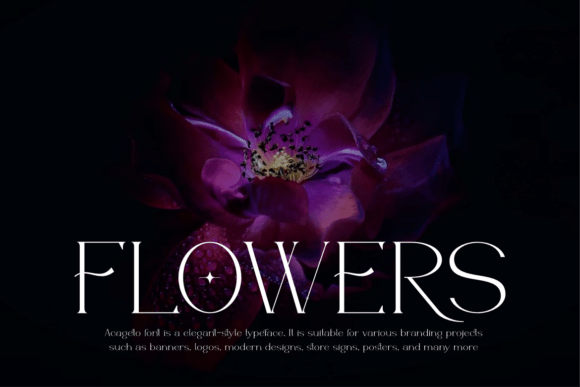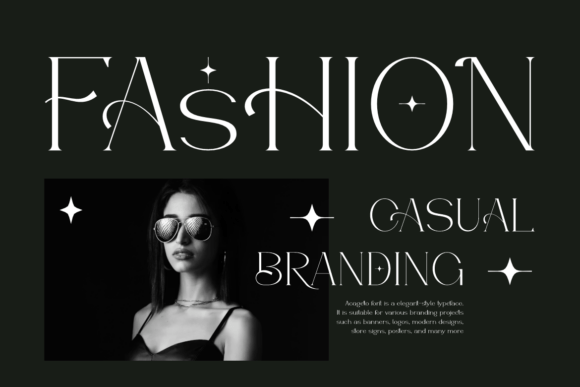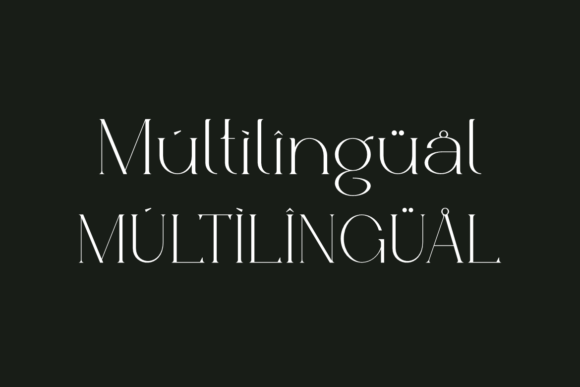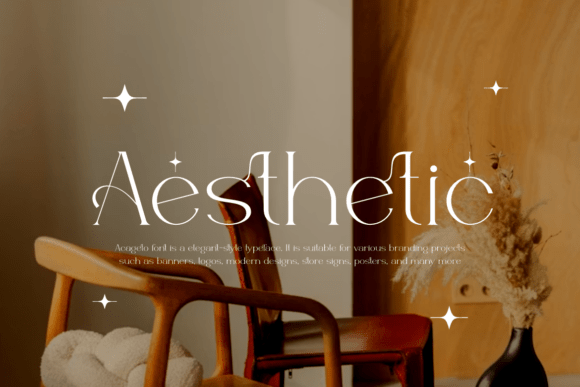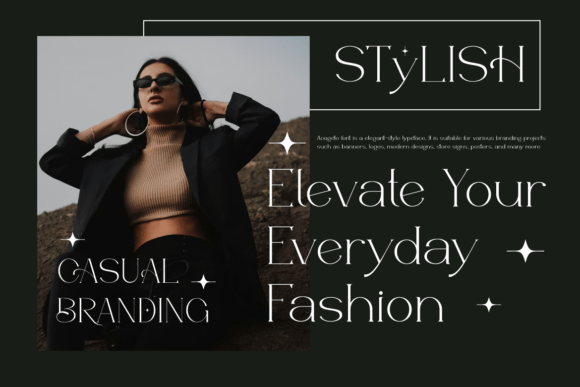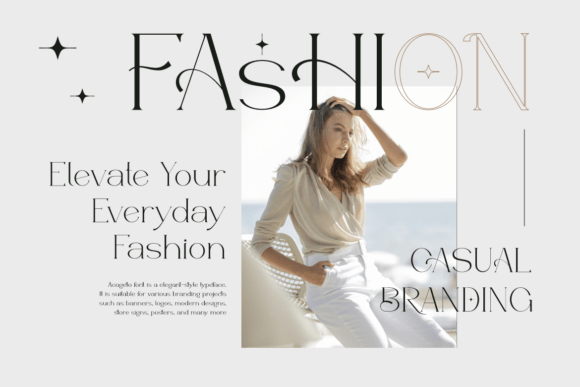
Introduction to Acageto Font
Acageto Font is a serif and authentic display typeface.
It’s perfect for various branding projects such as logos, modern designs, and more This font stands out beautifully in a wide range of contexts.
Key Features of Acageto Font
Why Choose Acageto Font?
Acageto Font offers exceptional quality and versatility, making it a valuable addition to your design toolkit. Whether you’re creating for personal projects or commercial use, Acageto Font delivers professional results.